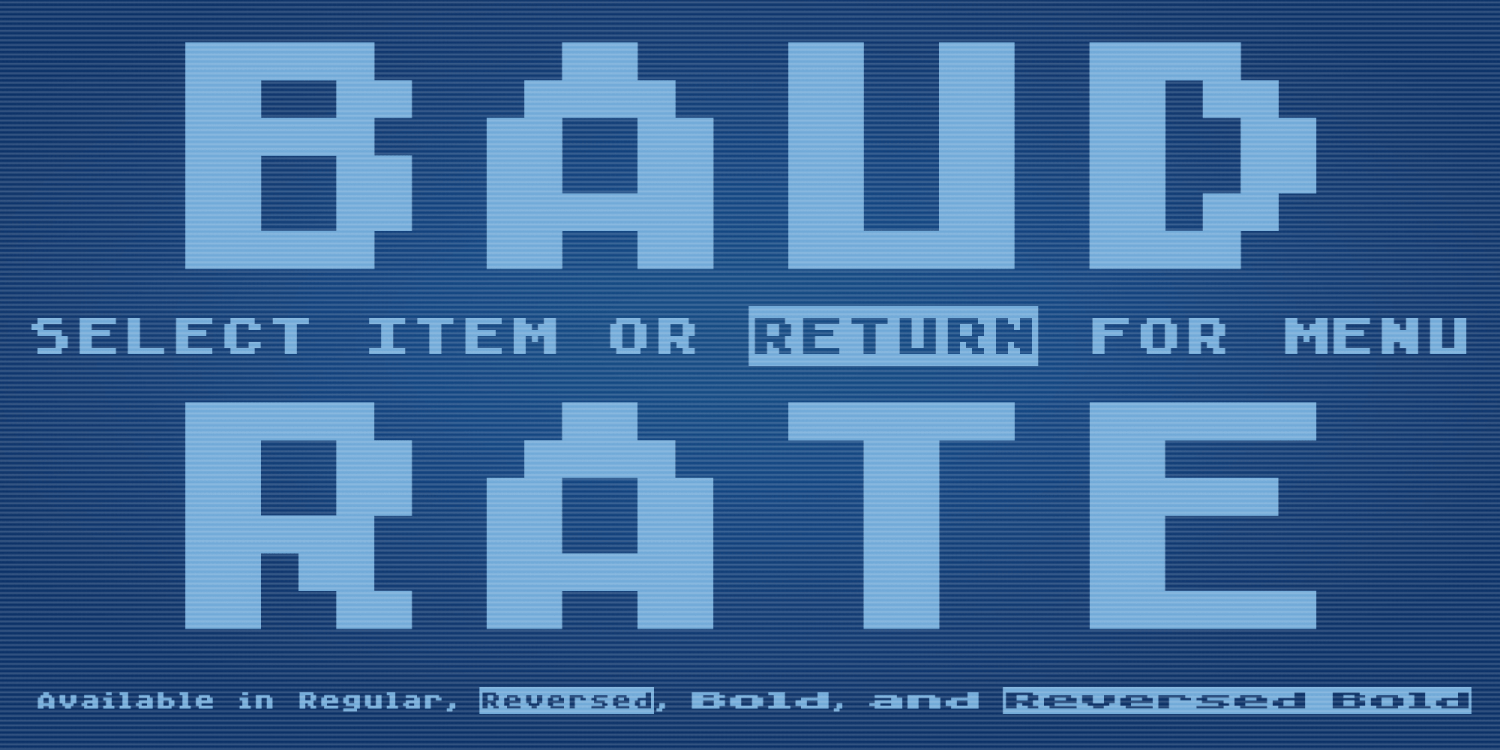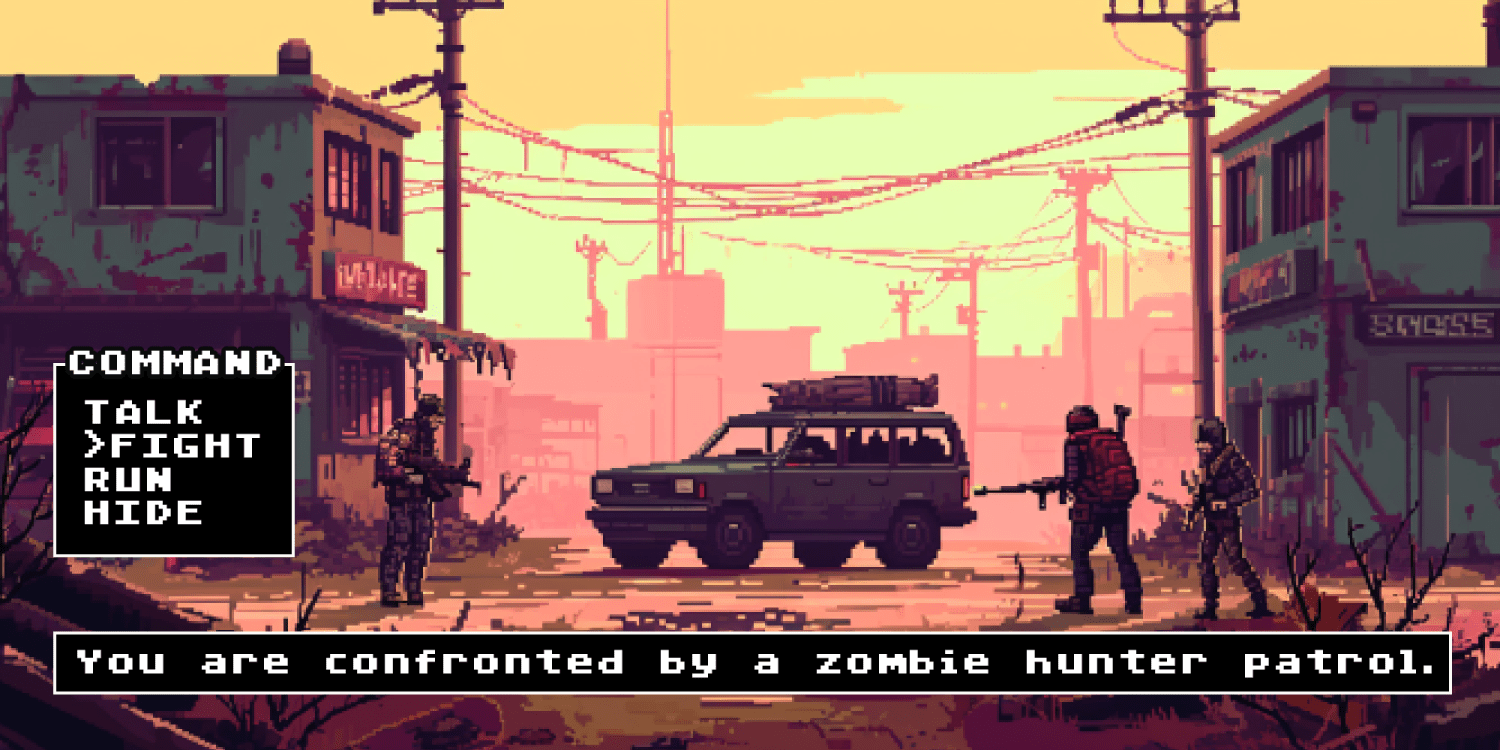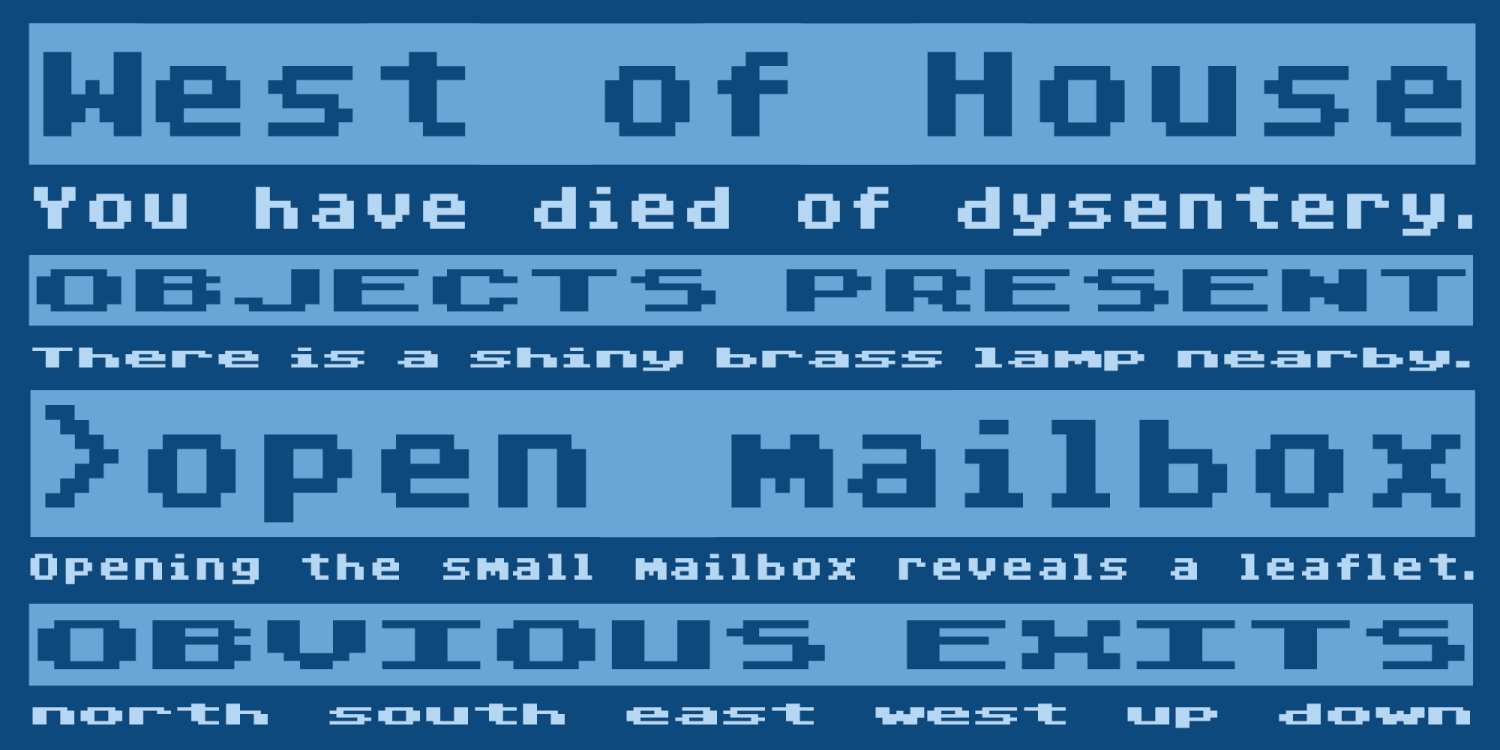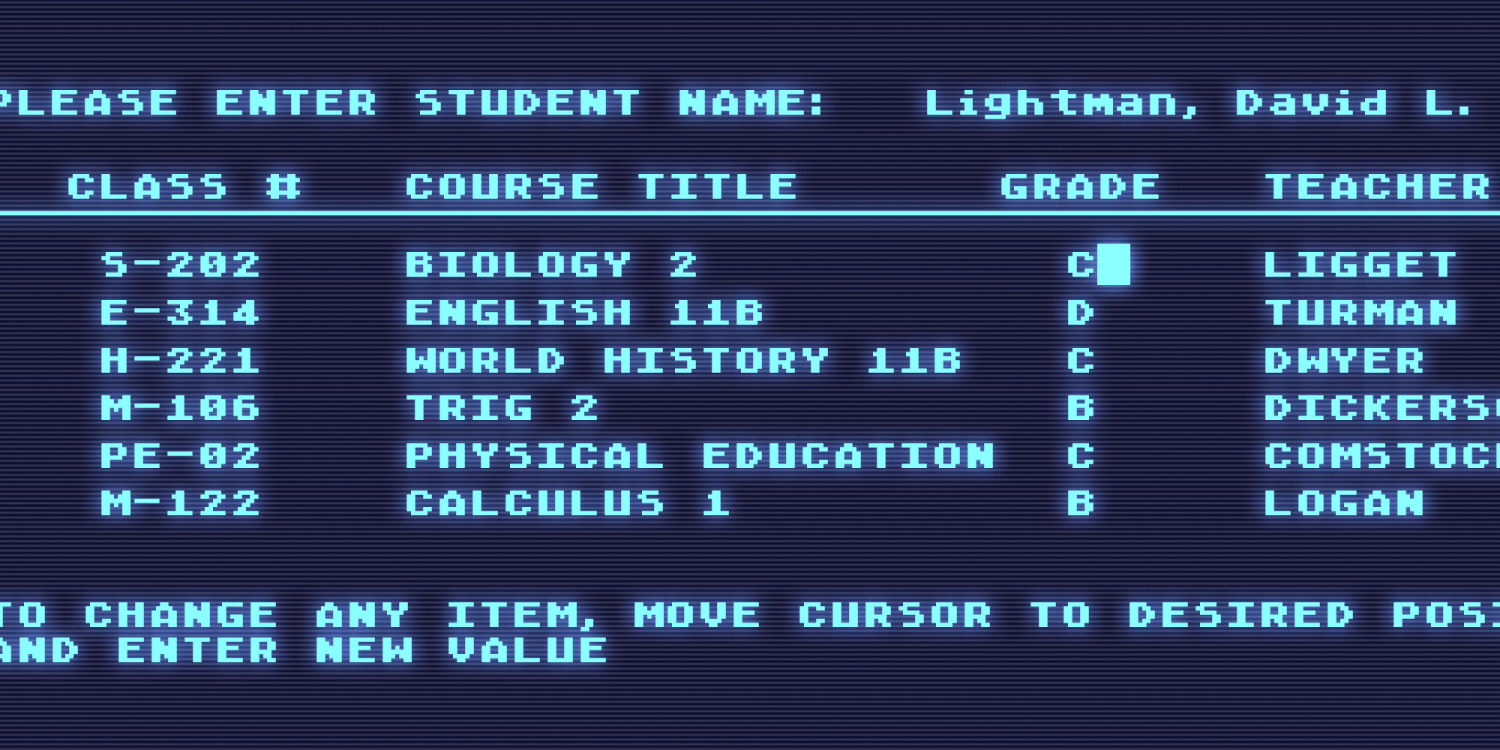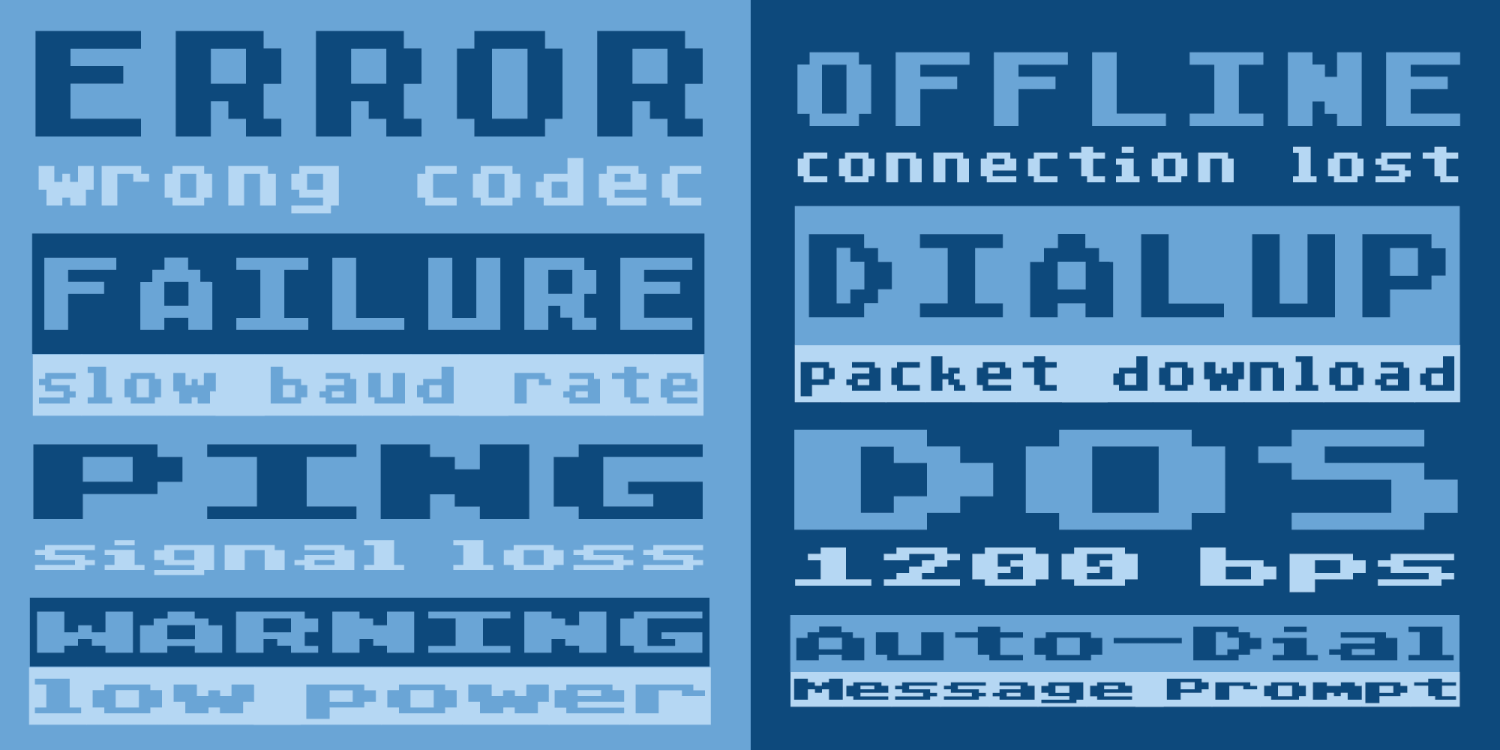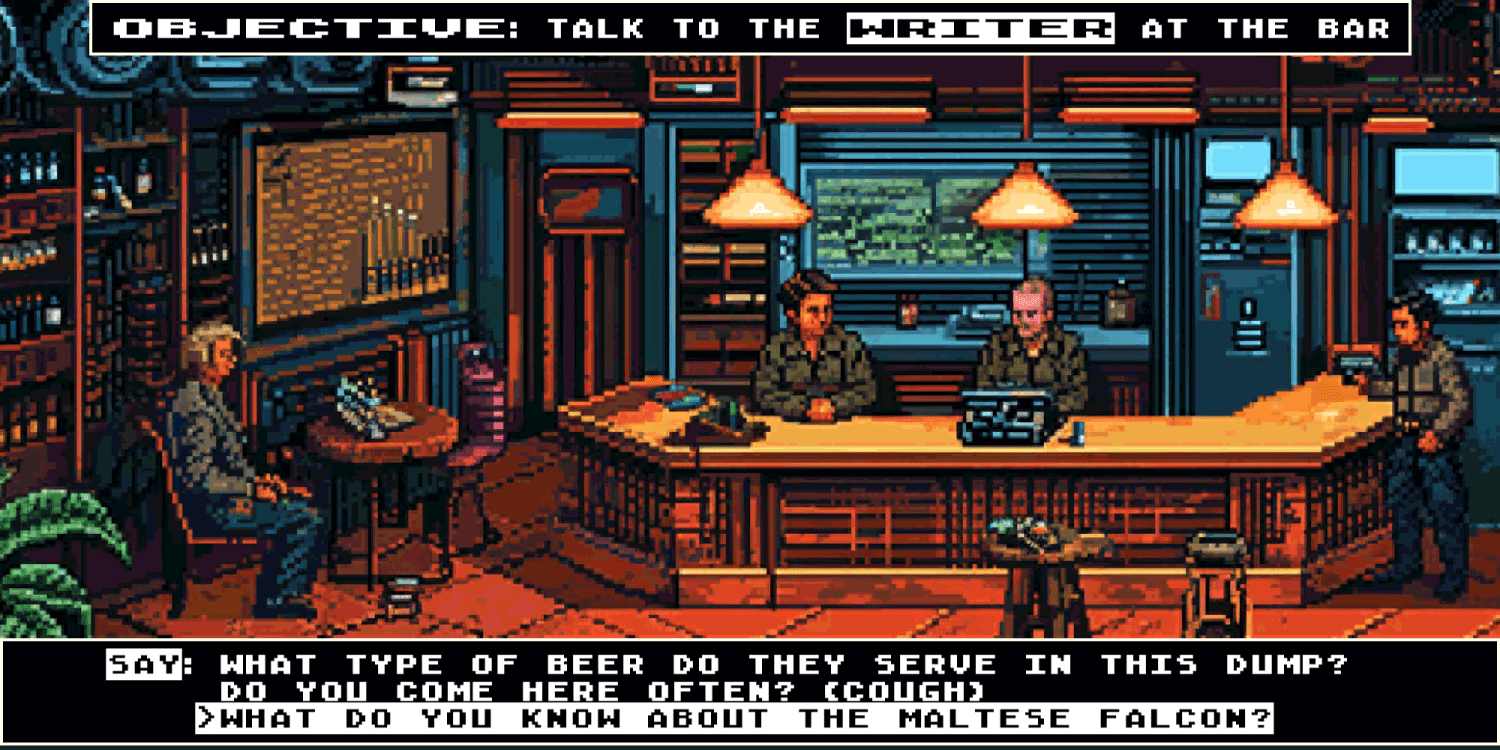
Baud Rate
Baud Rate is a retro pixel font family created as a love letter to classic Atari-era games, CRT screens, and old-school computer graphics. Built from carefully referenced vintage sources, it captures that unmistakable blocky, low-resolution charm while remaining practical for modern design work. The family includes Regular and Bold styles, plus Reversed and Reversed Bold versions that mimic the iconic “highlighted text” look seen in classic menus, inventories, dialog boxes, and interface prompts.
Unlike many nostalgic bitmap fonts, Baud Rate includes an expanded character set with international accents and extra symbols to support contemporary projects. To preserve the authentic pixel height and keep the cap line consistent, accented uppercase letters are intelligently handled by converting to small caps where needed, maintaining the period-correct look without awkward vertical distortion.
Baud Rate is ideal for retro game branding, pixel art projects, UI overlays, streamer graphics, indie game menus, sci-fi interfaces, tech posters, glitch aesthetics, nostalgic packaging, and any design that wants true 8-bit energy with modern language support. Whether you’re building a full retro interface system or just want punchy pixel headlines, Baud Rate delivers clean, authentic bitmap attitude in a complete four-style set.